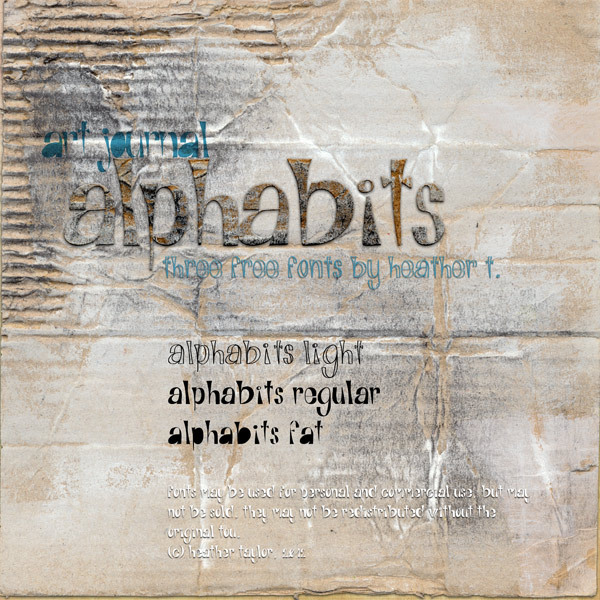
Alphabits-Fat by Heather Taylor is a free decorative display font with dramatically swollen shapes and razor-thin joins. Extreme changes in stroke width give the letters a warped, almost liquid silhouette. Sharp cutouts interrupt the broad curves.
Surreal and theatrical themes suit its exaggerated construction, making it useful for fashion posters, experimental magazine covers, music packaging, and arts events. The lettering can become part of the artwork itself, with its sliced shapes echoing collage, distorted photography, or bold abstract patterns.